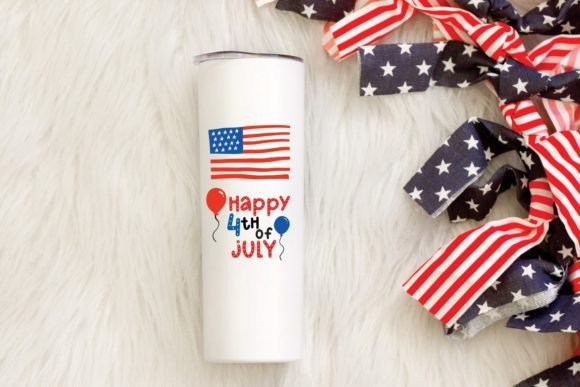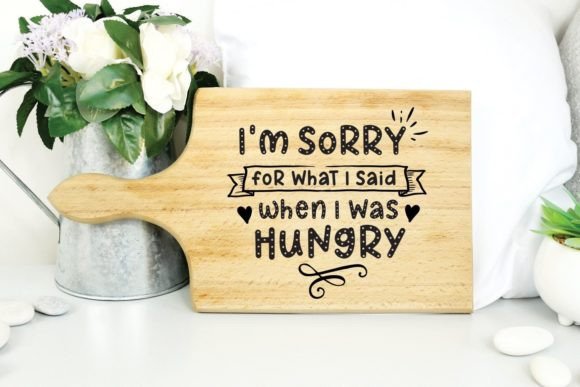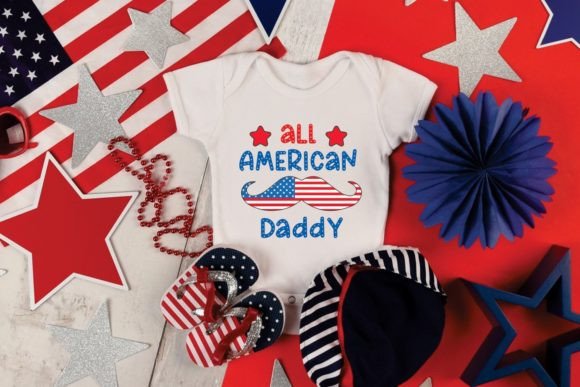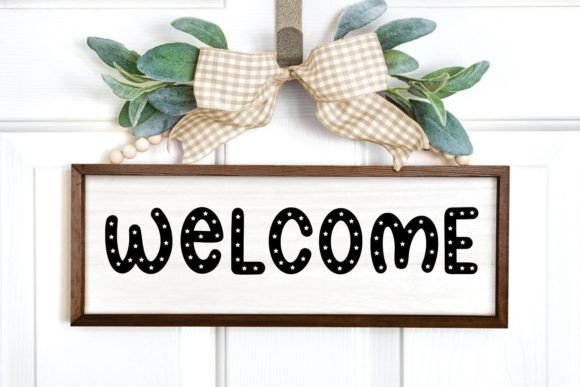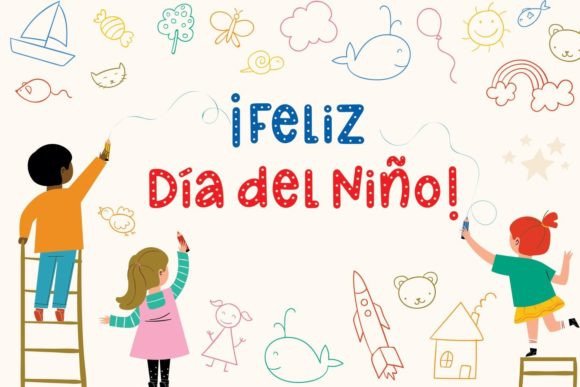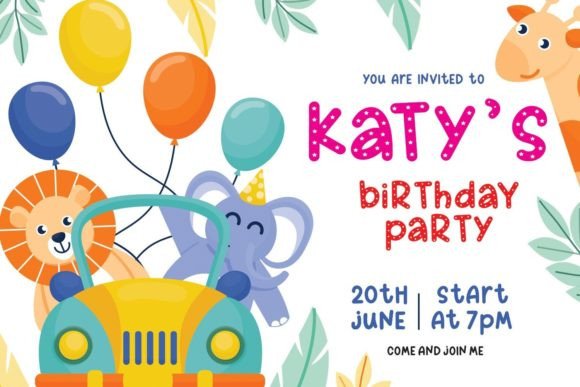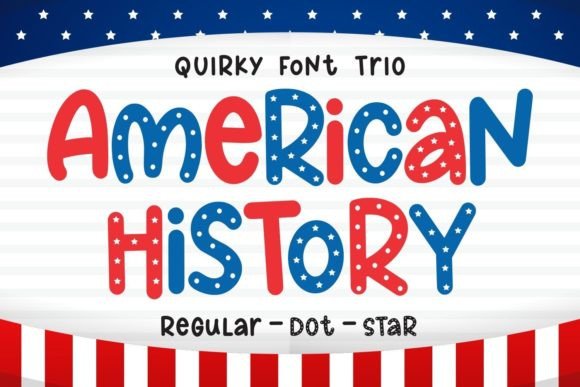
Introducing American History Font: The Ultimate Choice for Fun and Creative Designs
Are you looking for a font that embodies the spirit of fun and joyfulness? Look no further than the American History Font! This cool and fun display font is designed to add a touch of cuteness and jollity to your designs, making it perfect for a wide range of creative projects. With its incredibly versatile style, the possibilities are endless, and the only limit is your imagination.
What Makes American History Font So Special?
American History Font is more than just a font – it’s a design statement. Its unique and playful style makes it stand out from the crowd, adding a touch of personality to any project. Whether you’re a designer, crafter, or DIY enthusiast, this font is sure to delight. Its cute and jolly appearance makes it perfect for creating designs that appeal to a wide range of audiences, from kids to adults.
Endless Possibilities for Crafting and Design
American History Font is ideal for a variety of creative projects, including crafting, branding, and decorating your home or business. With this font, you can create stunning logos, beautiful frames, and eye-catching designs that showcase your personality and style. Use it to add a personal touch to your book covers, stationery, marketing materials, magazines, and more.
Perfect for Crafting Projects
If you’re a crafter, you’ll love the American History Font. Its playful and personalized style makes it perfect for a wide range of crafting projects, from scrapbooking to card making. Add a touch of whimsy to your DIY projects, and make them stand out with this unique font. Whether you’re creating handmade gifts, decorations, or cards, American History Font is the perfect choice.
One of the best things about American History Font is its versatility. It can be used for a wide range of design projects, from formal to informal, and from digital to print. Its clean and clear design makes it easy to read, while its playful style adds a touch of personality to your designs. Use it to create stunning designs for your business, or to add a personal touch to your home decor.
Why Choose American History Font?
So why choose American History Font? Here are just a few reasons:
• Unique and Playful Style: American History Font has a unique and playful style that makes it stand out from the crowd.
• Versatile: This font is versatile and can be used for a wide range of design projects.
• Easy to Read: Its clean and clear design makes it easy to read.
• Perfect for Crafting: American History Font is perfect for crafting projects that require a personalized look.
Get Creative with American History Font
With American History Font, the possibilities are endless. Get creative and use it to:
• Create stunning logos and branding materials for your business.
• Design beautiful frames and decorations for your home.
• Add a personal touch to your book covers, stationery, and marketing materials.
• Create eye-catching designs for your crafting projects.
In conclusion, American History Font is the ultimate choice for designers and crafters who want to add a touch of fun and joyfulness to their designs. Its unique and playful style, versatility, and ease of use make it perfect for a wide range of creative projects. So why wait? Get creative with American History Font today, and see the difference it can make in your designs!